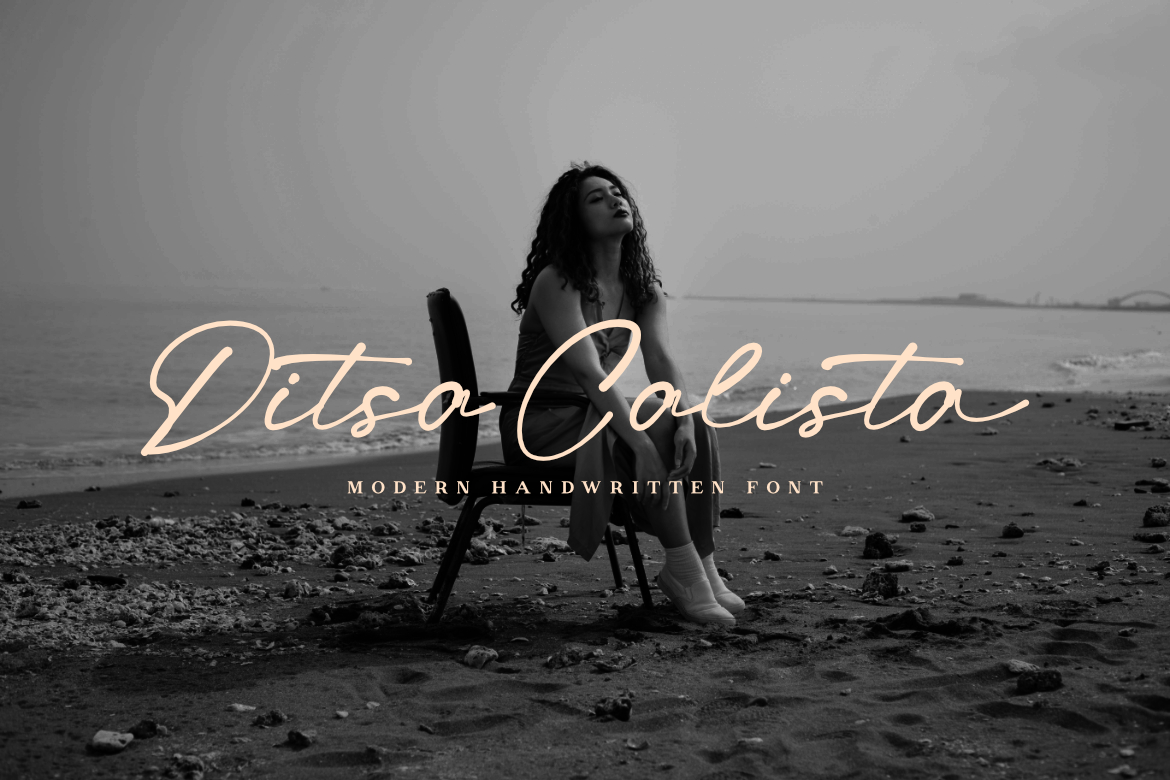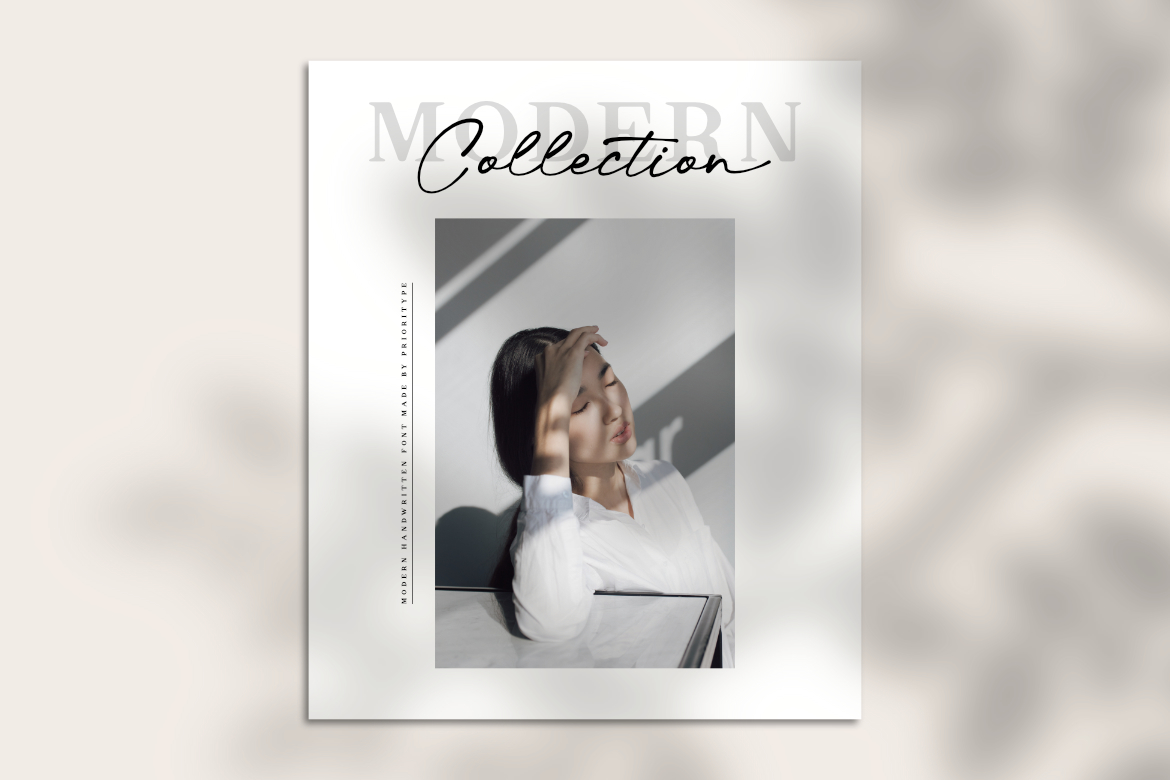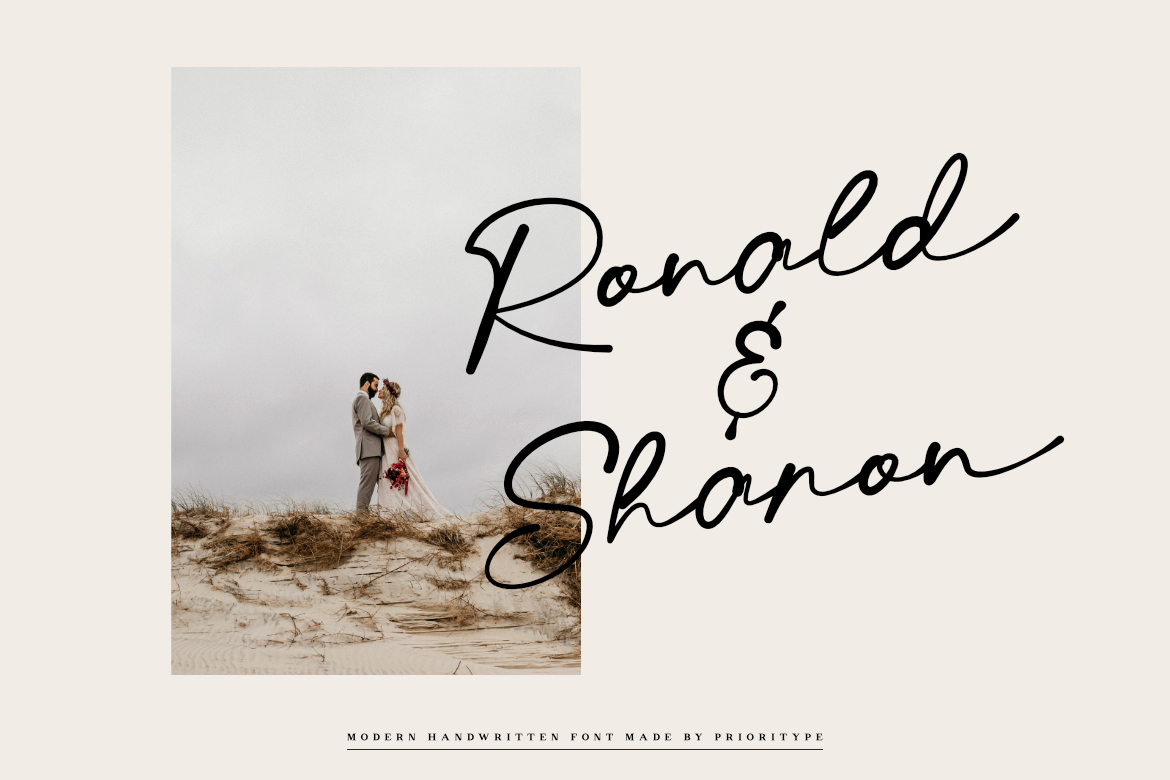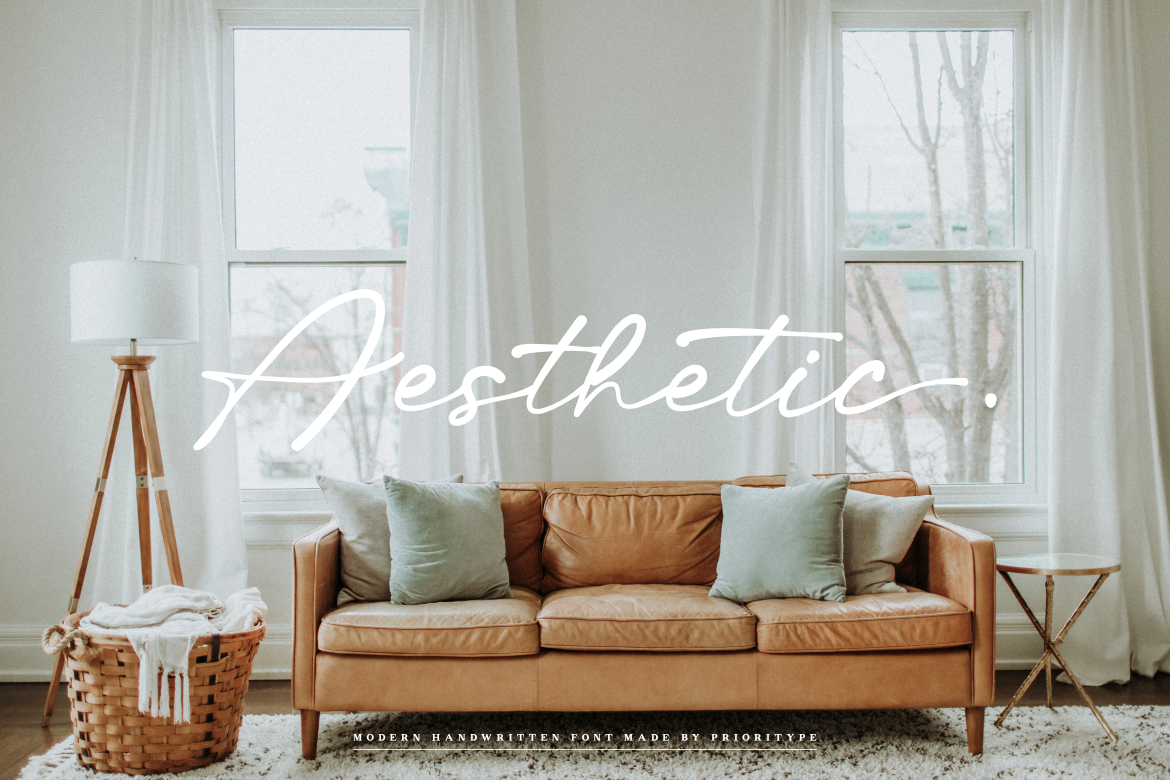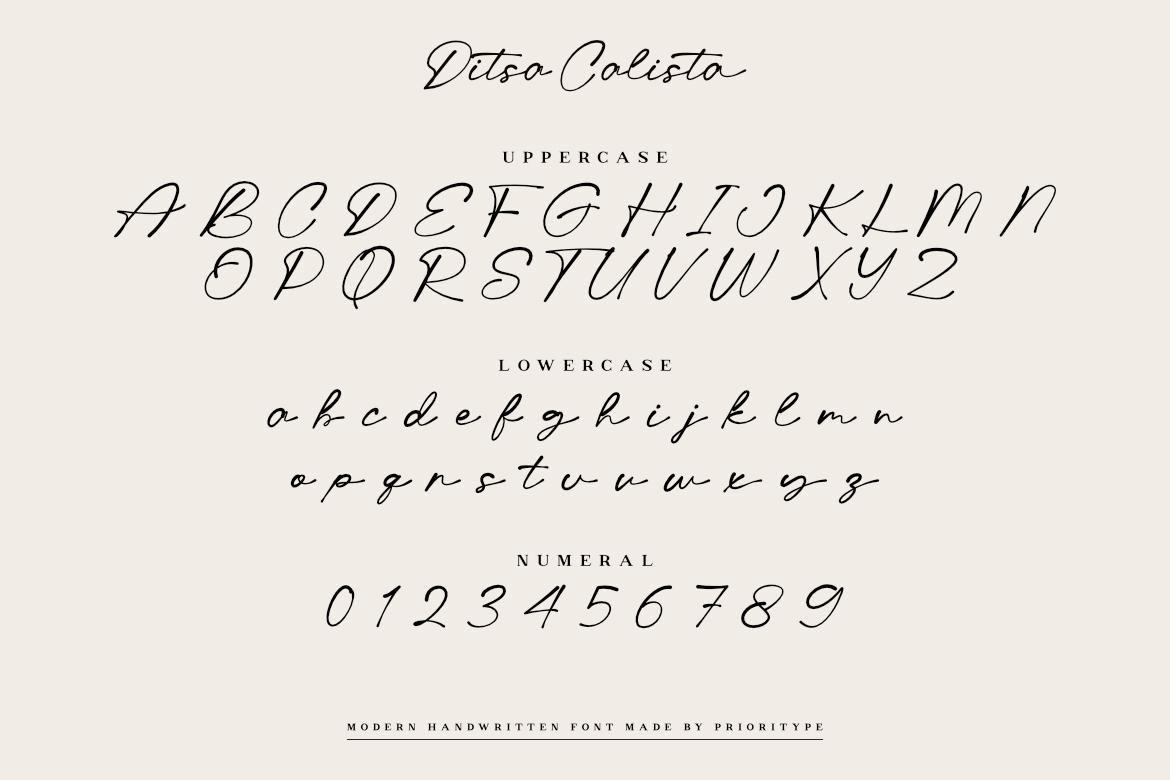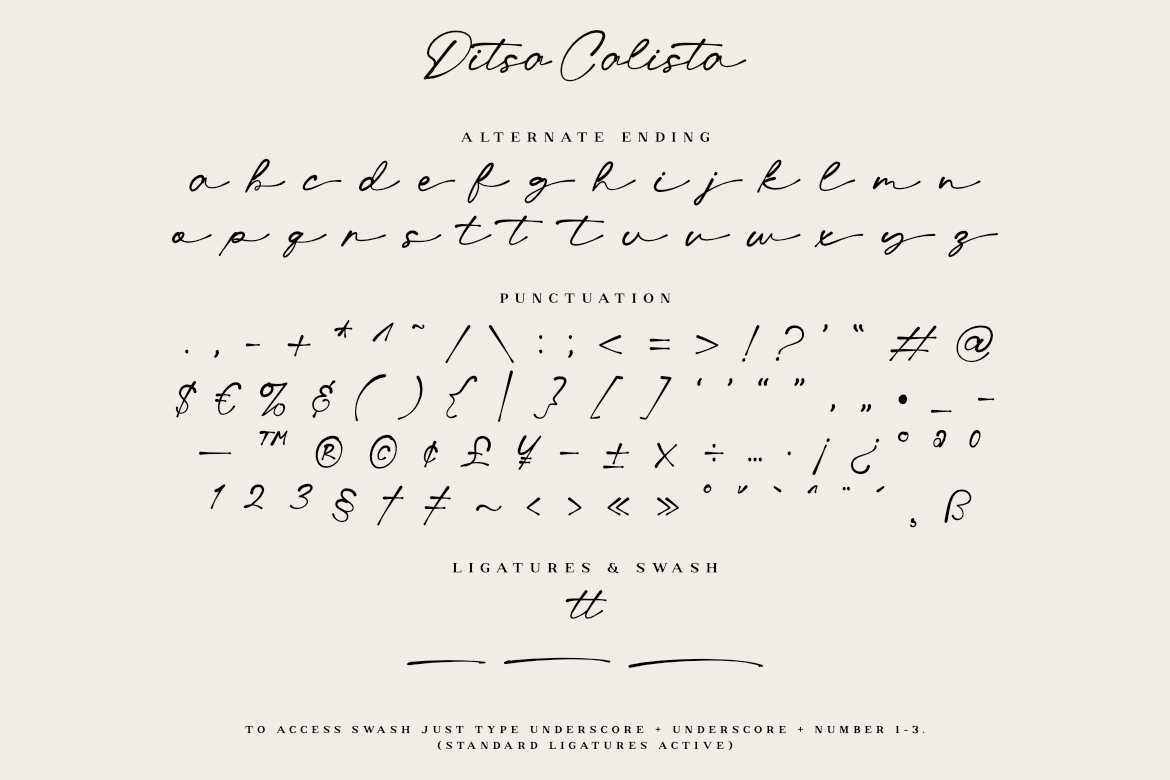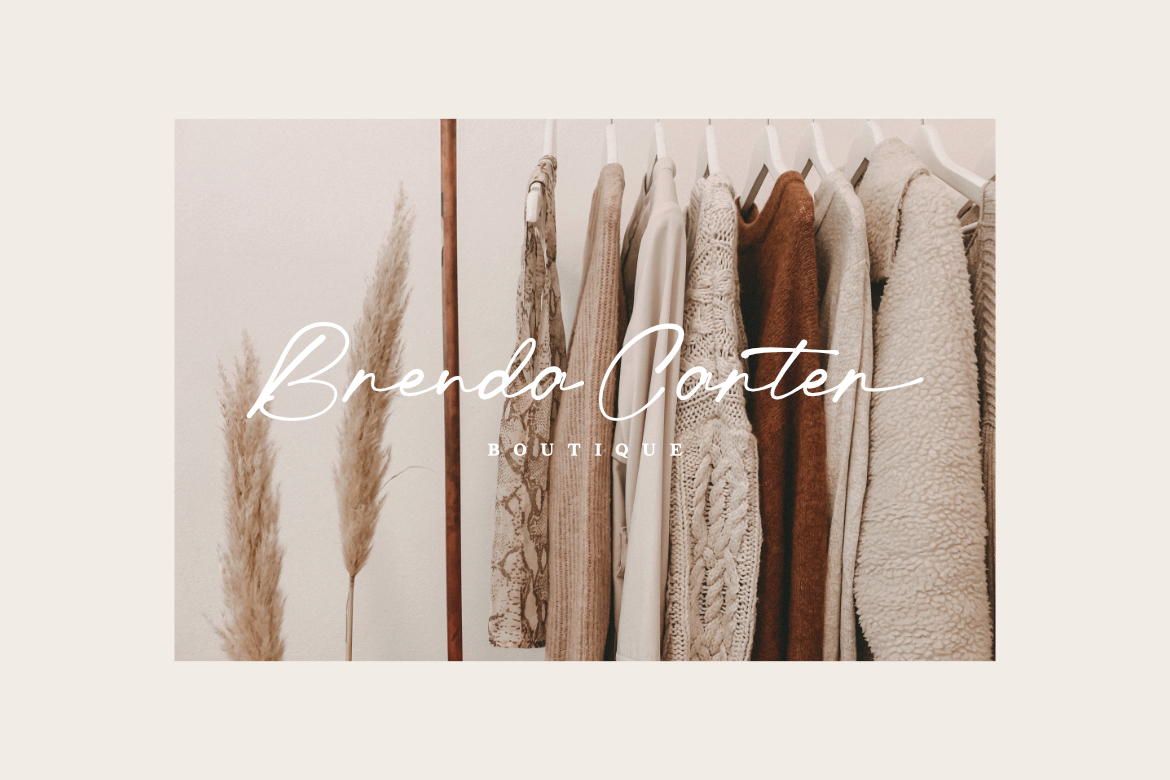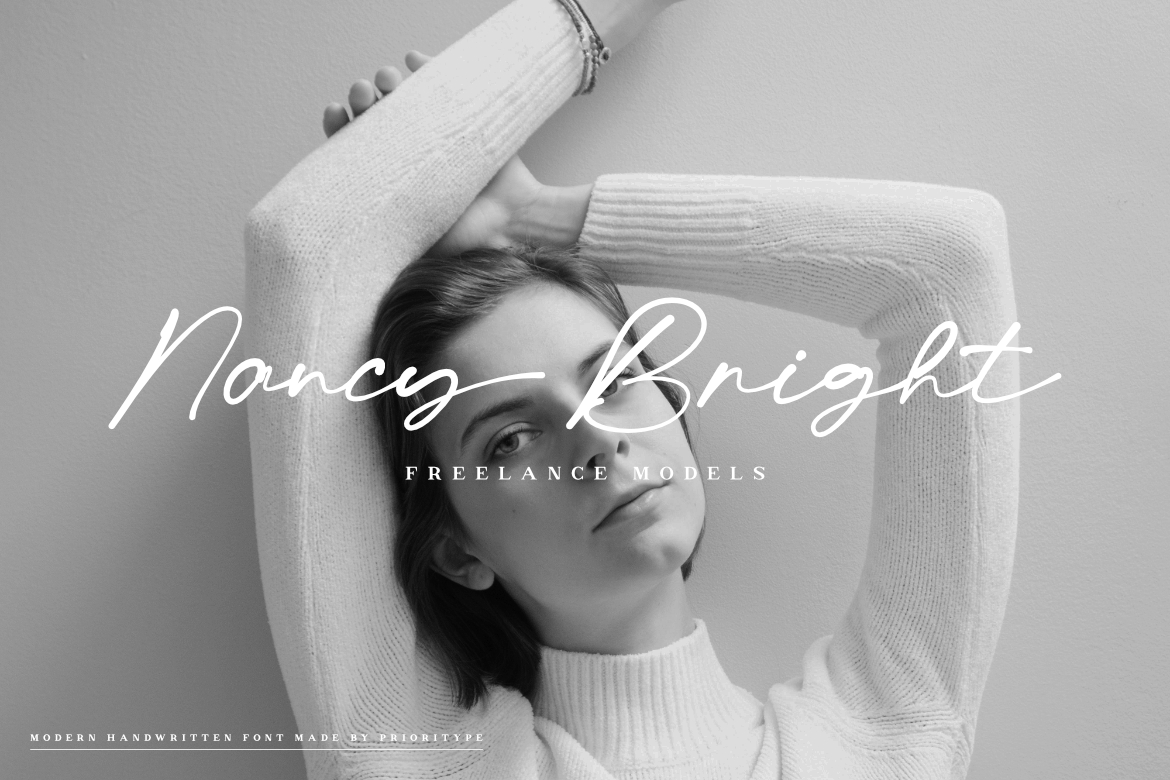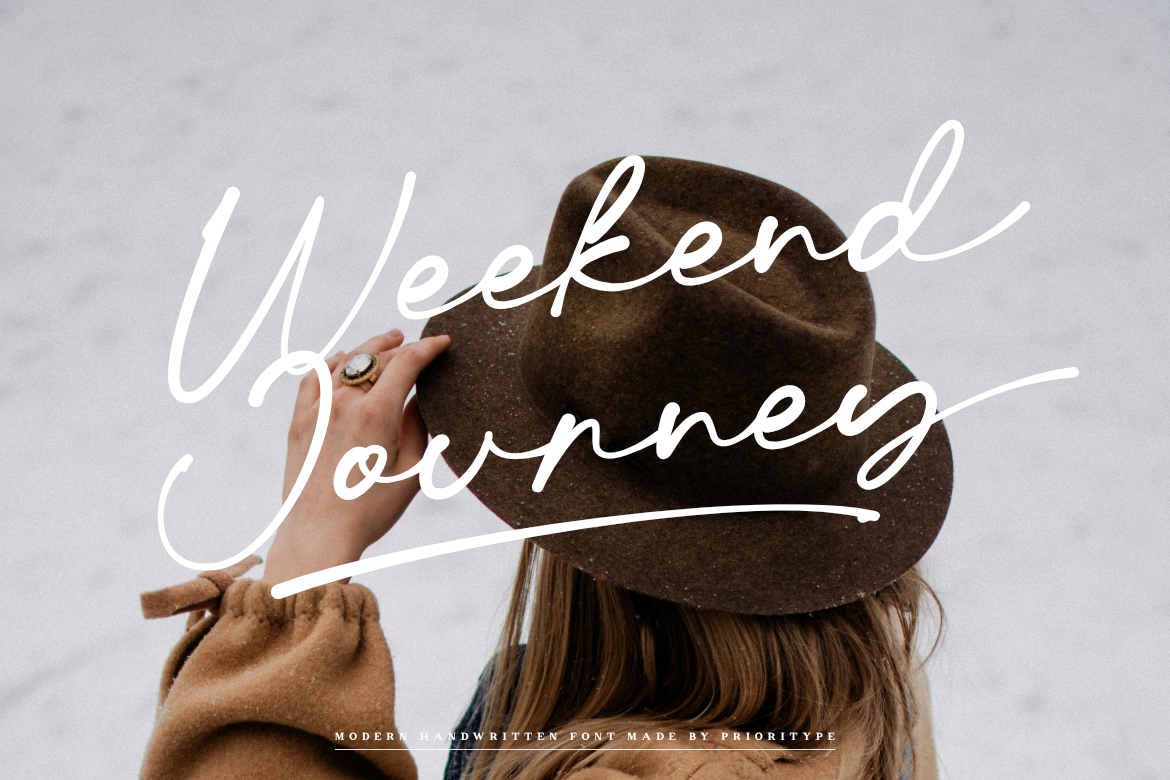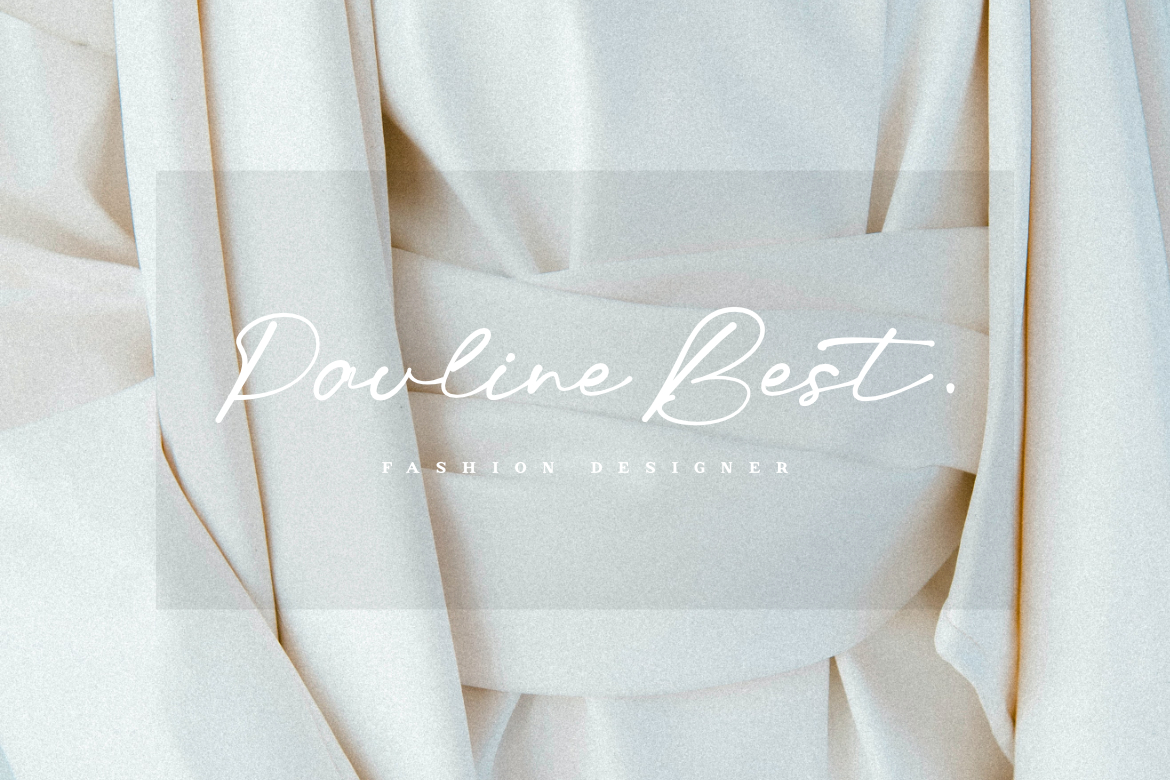
Ditsa Calista – Modern Handwritten Font
Natural font from hand strokes. Looks modern and luxurious ready to accompany your design project. So beautiful when applied in design projects such as logos, name cards, branding, Instagram posts and much more for you to create.